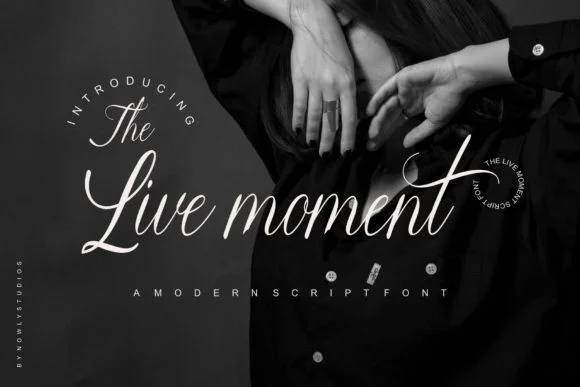
The Live Moment Font
The Live Moment Font is perfect for motivational quote graphics, lifestyle blog headers, inspirational social media content, mindfulness app interfaces, personal development branding, wellness retreat marketing, photography watermarks, journal covers, live event posters, and meaningful designs that celebrate presence, authenticity, and capturing life's precious experiences.
This font is exciting because it beautifully captures the essence of mindfulness and present-moment awareness through letterforms that feel spontaneous, alive, and genuinely authentic. The natural flow and organic character convey the beauty of living intentionally, making it ideal for projects that encourage people to slow down, appreciate life's moments, and connect more deeply with their experiences and emotions.
The The Live Moment Font family typically includes uppercase and lowercase characters, numerals, punctuation marks, ligatures, stylistic alternates, and decorative elements that enable designers to create inspirational compositions with heartfelt authenticity and emotional resonance.